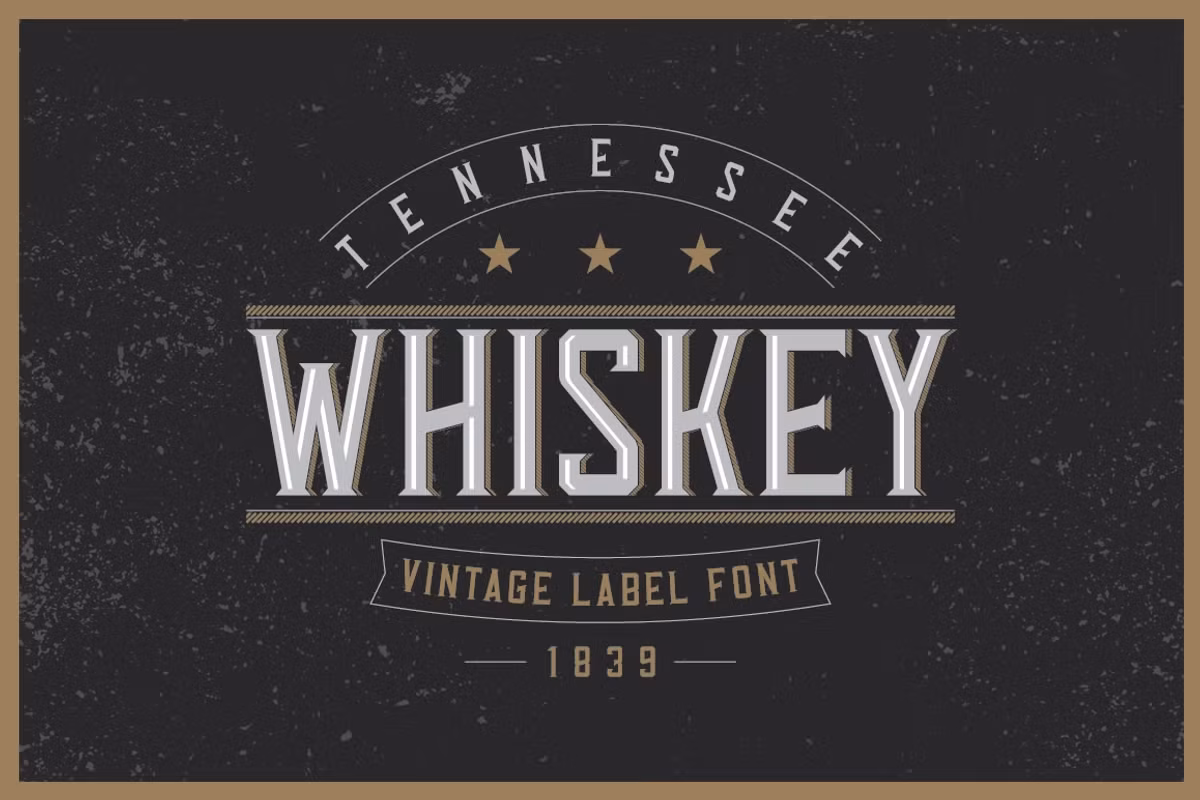
Tennessee Whiskey Label Font Free Download is a vintage-inspired typeface crafted for classic packaging, bold logos, and anything that channels Southern charm. With its ornate details and retro serif flair, this font is perfect for distillery branding, bar signage, and music-themed design projects rooted in Americana.
The bold, decorative letterforms echo old-time whiskey labels, giving your work an authentic, handcrafted feel. Whether you’re designing merchandise, labels, or promotional graphics, this font adds a timeless touch that resonates with tradition and grit.
Loved by designers for its nostalgic vibes and versatile personality, Tennessee Whiskey brings character and craftsmanship into every project. Don’t miss your chance to evoke the soul of the South—download Tennessee Whiskey Label Font Free Download and give your designs a smooth, vintage twist.